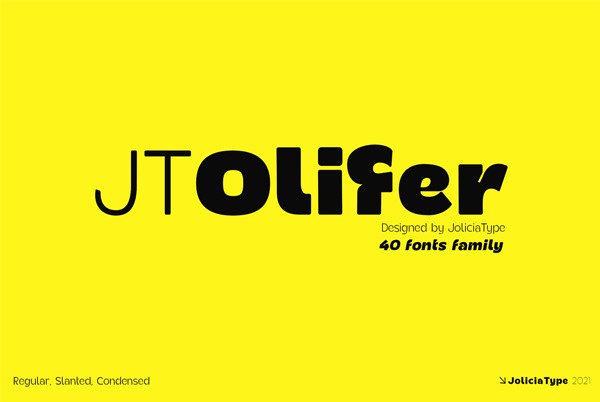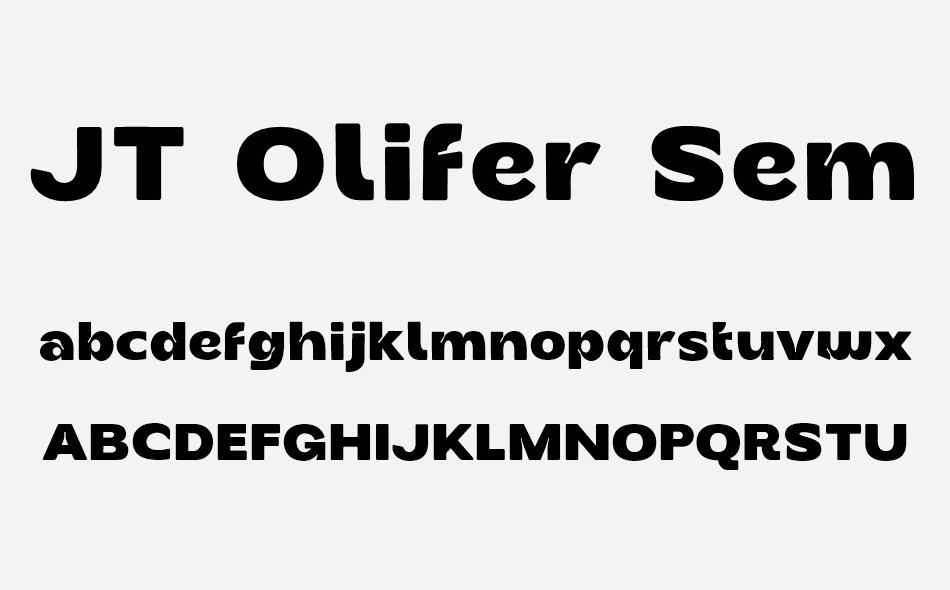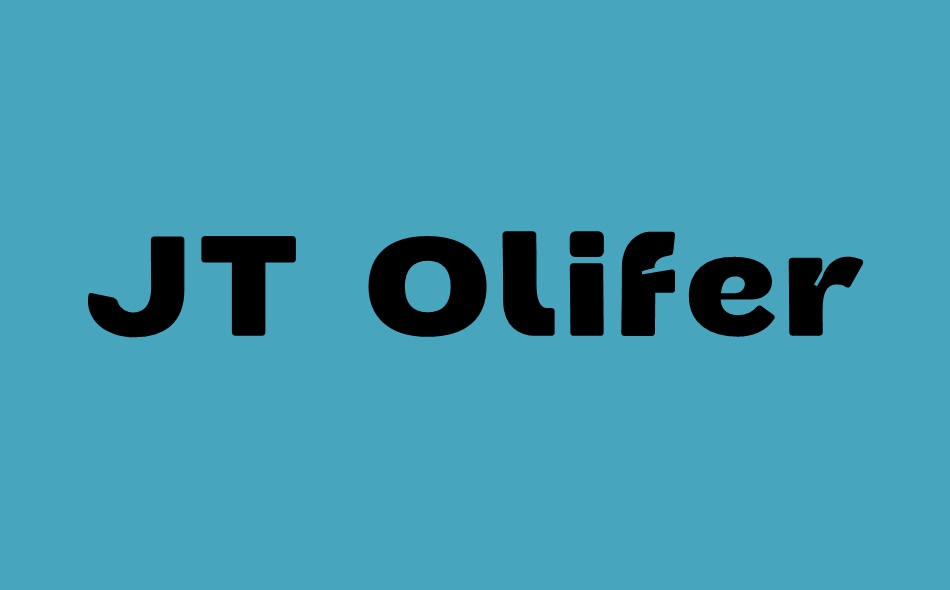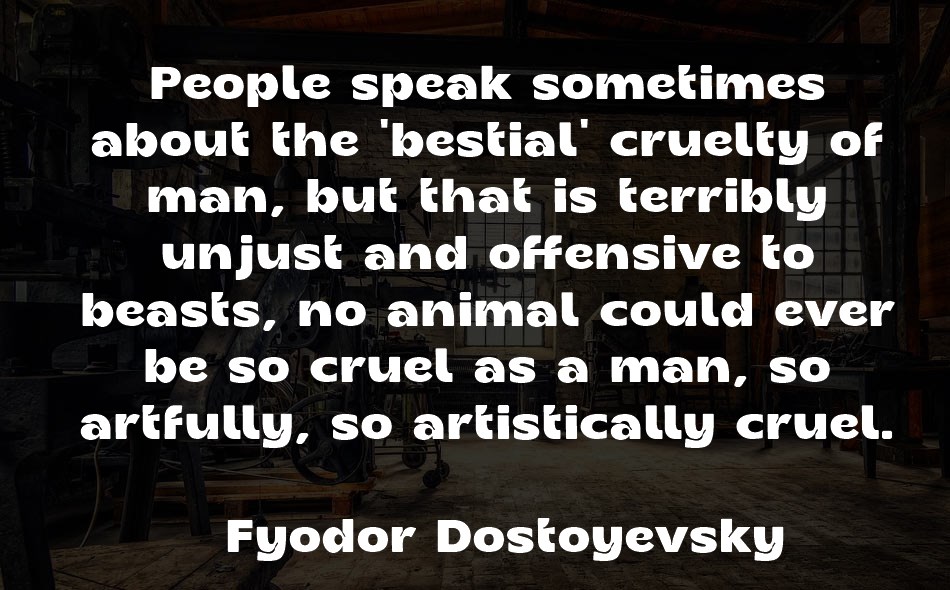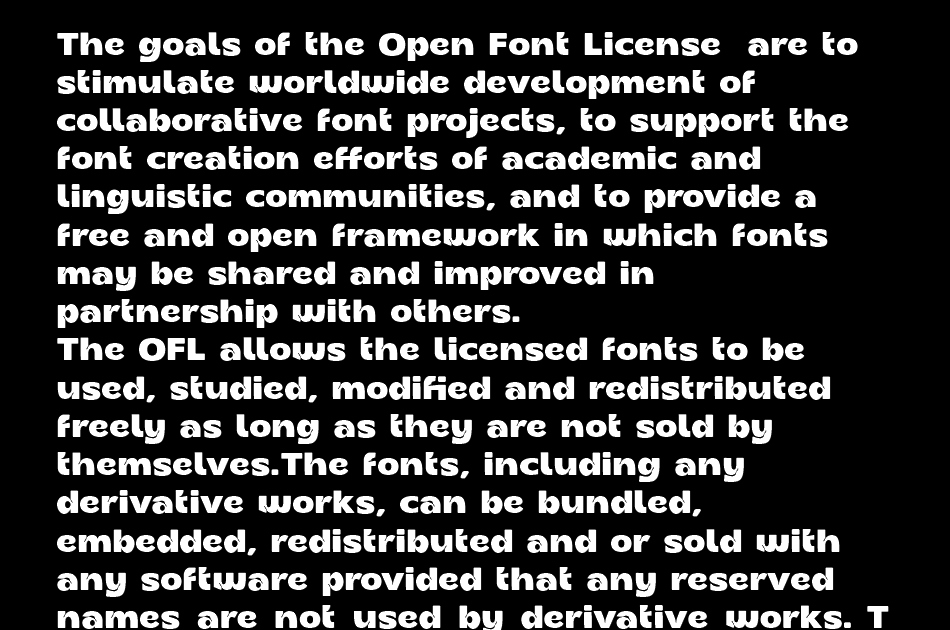
JT Olifer font
JT Olifer is family font of Jolicia Type designed by Laire Banyu Sandi Pawenang in October 2021, JT Olifer inspired by Modern Typography developed by us in our perspective, with a typeface detail in every corner we make more rounded, and give an inktrap accent to make unique impression special in every glyph, we really consider about aspect legibility, therefore we make family font amount 40 to assist the selection according to visual needs.